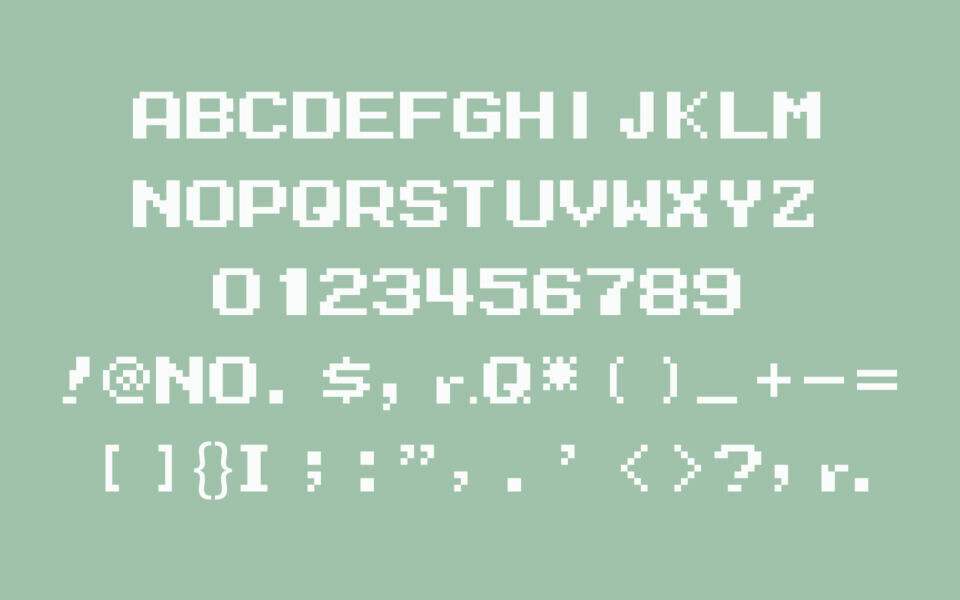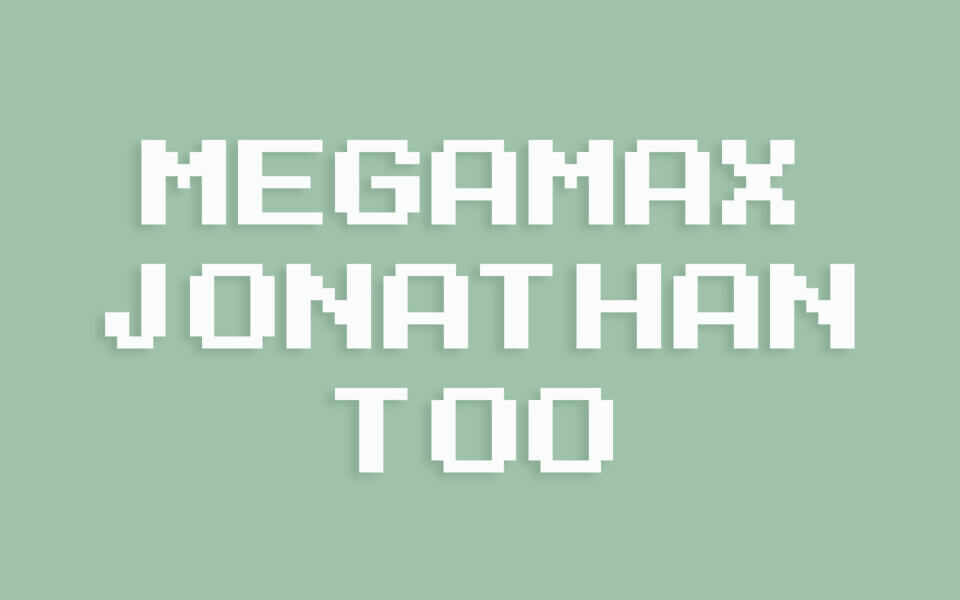
The “Megamax Jonathan Too Font” is a pure bitmapped font, a direct descendant of Megamax Jones, inspired by the 16-bit 8×8 cheque-style lettering from early Mega Man X games on SNES, with roots in the 8-bit style of Mega Man 2 (1988) for NES.
It incorporates characters from Mega Man, Mega Man 3, and Mega Man 4, plus alternate fan-translation characters and custom designs. Featuring a pixelated, retro aesthetic, it excels at 11 points and its multiples, offering a nostalgic, blocky charm.